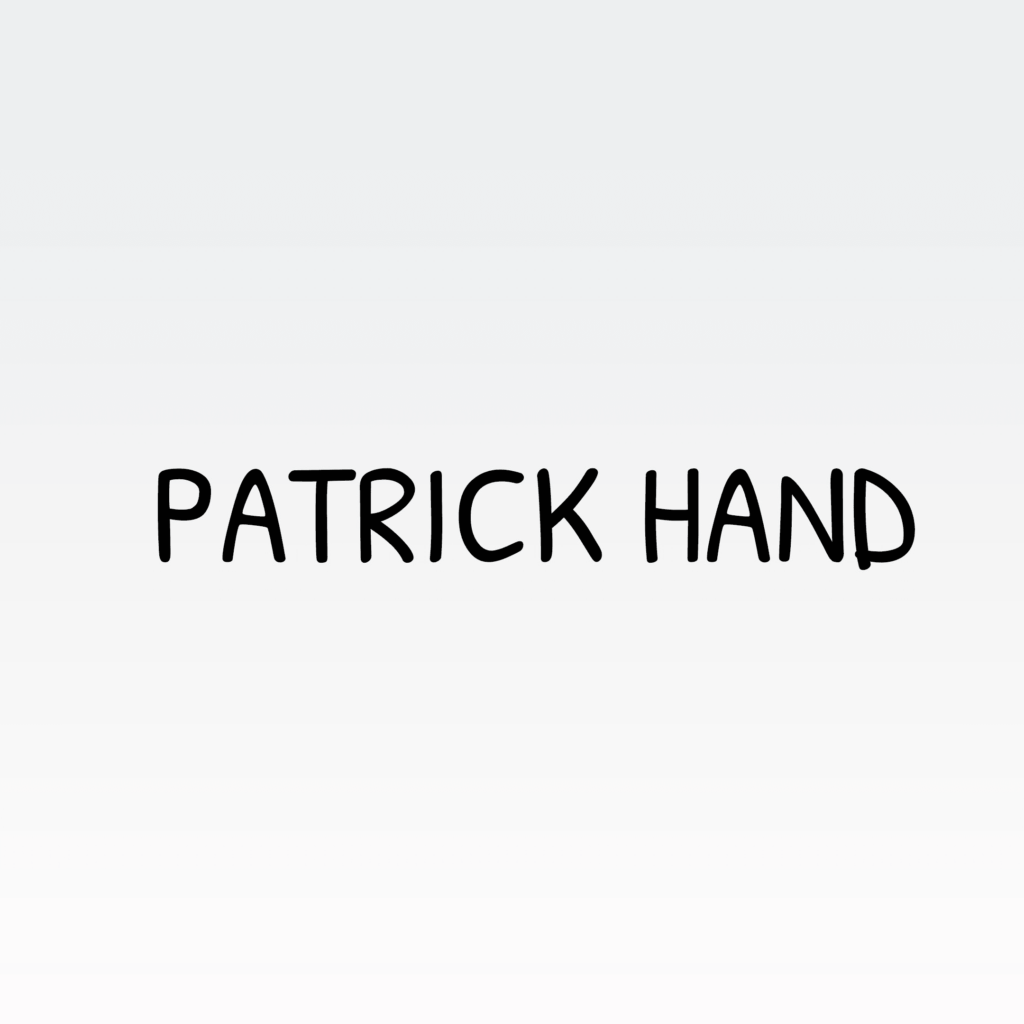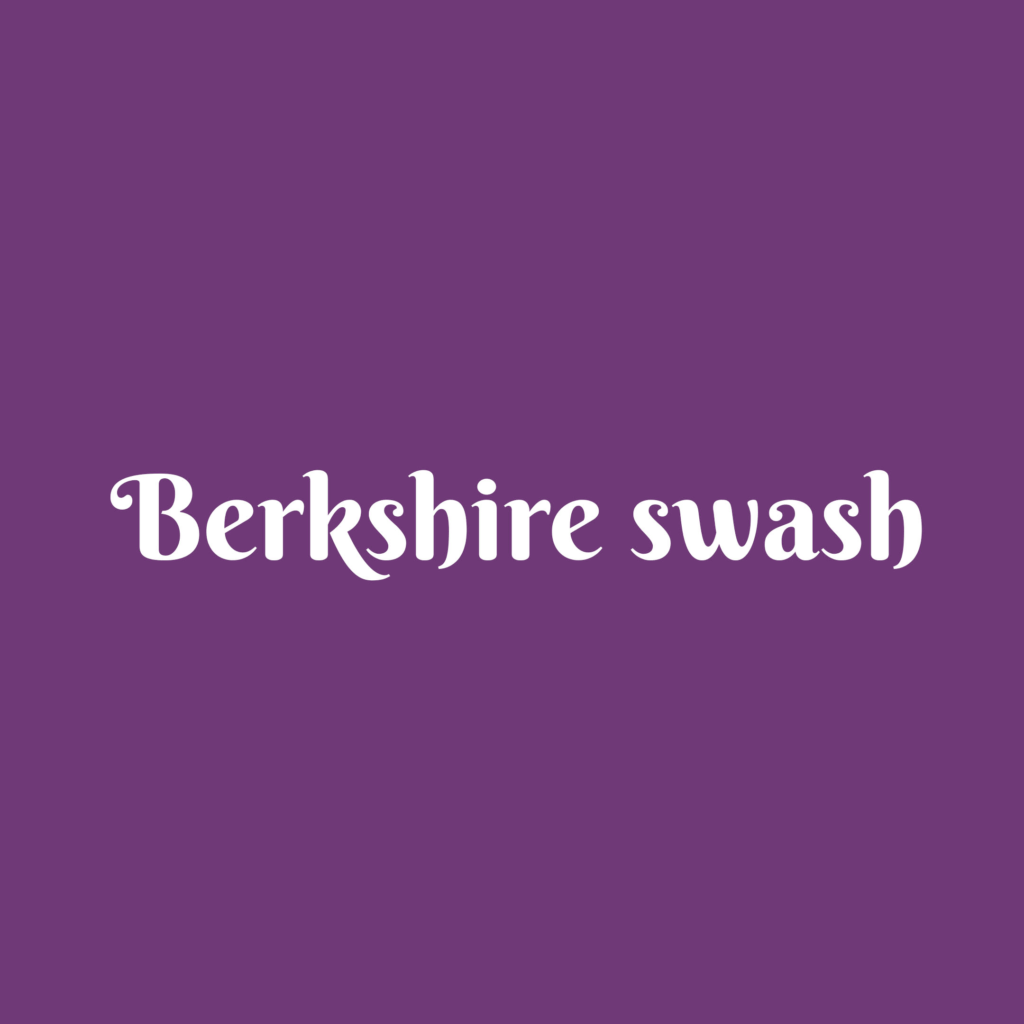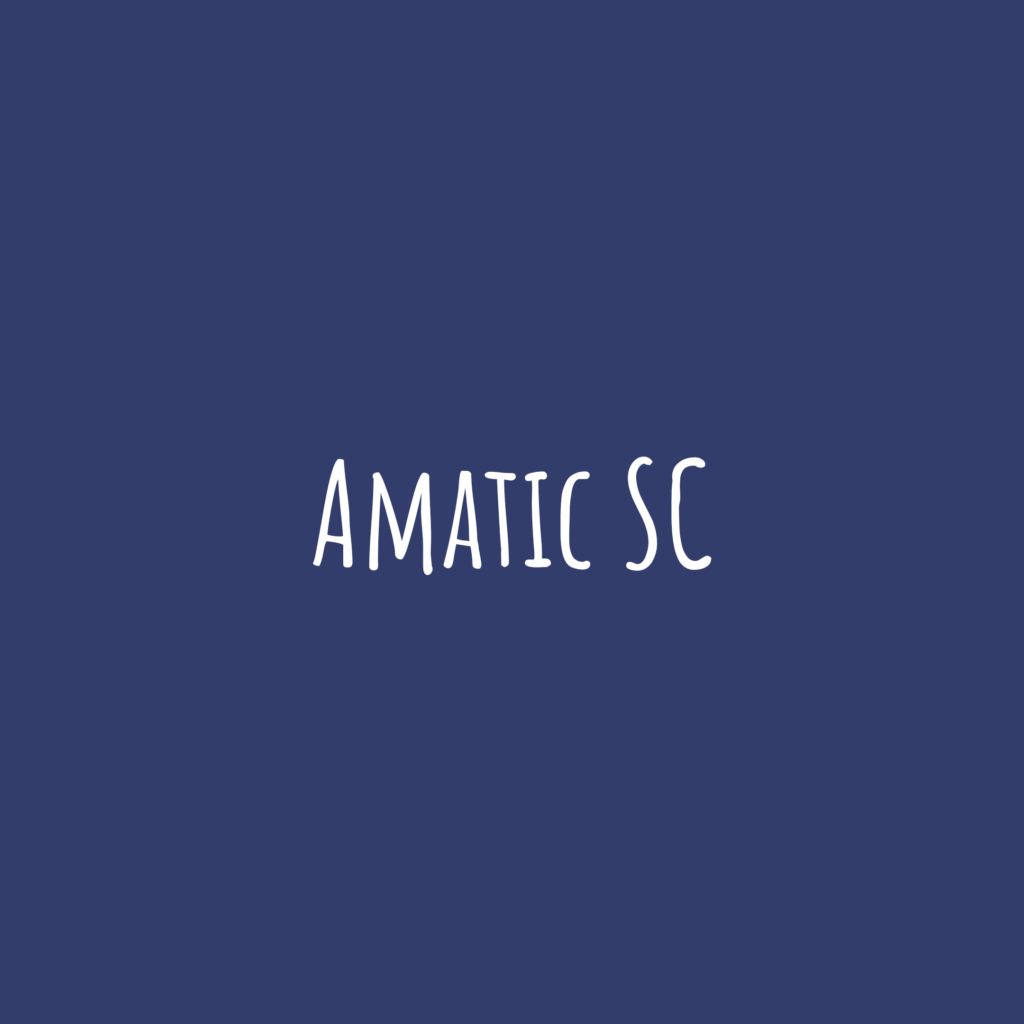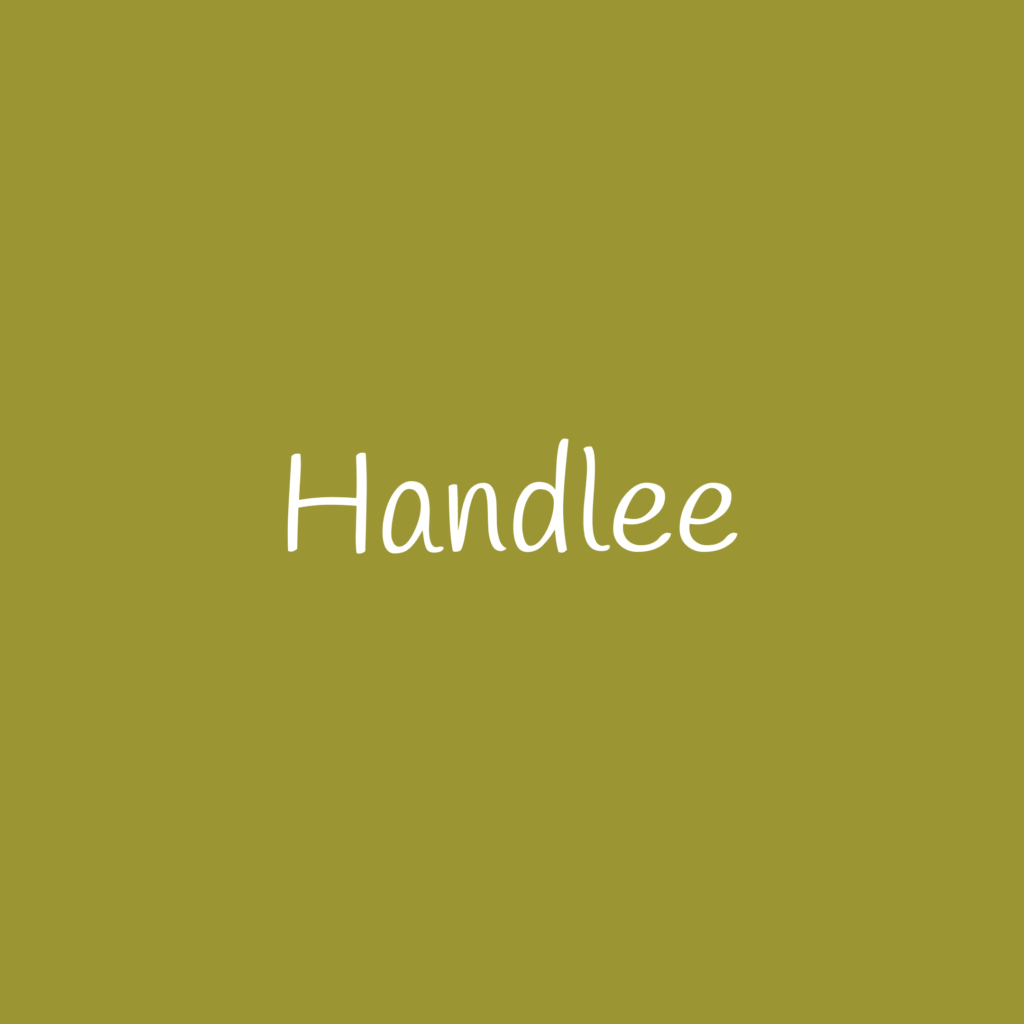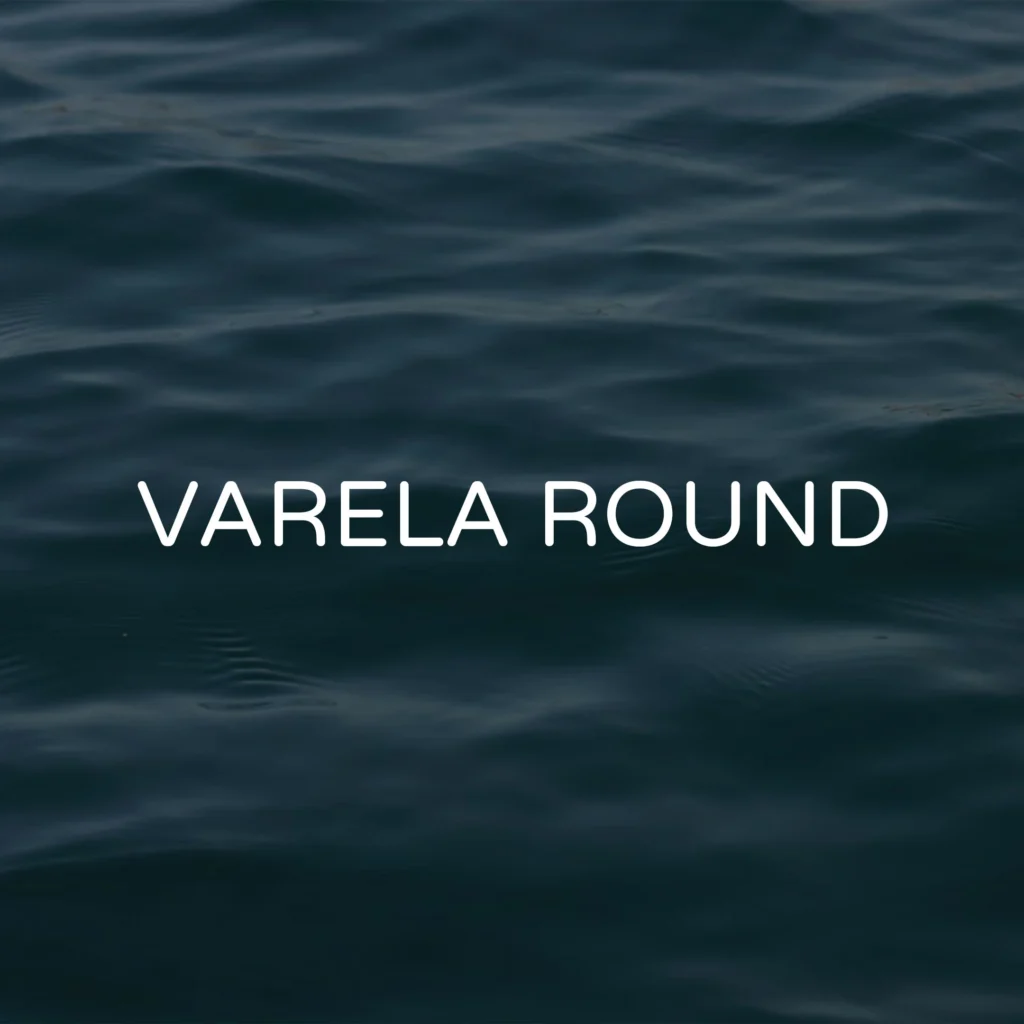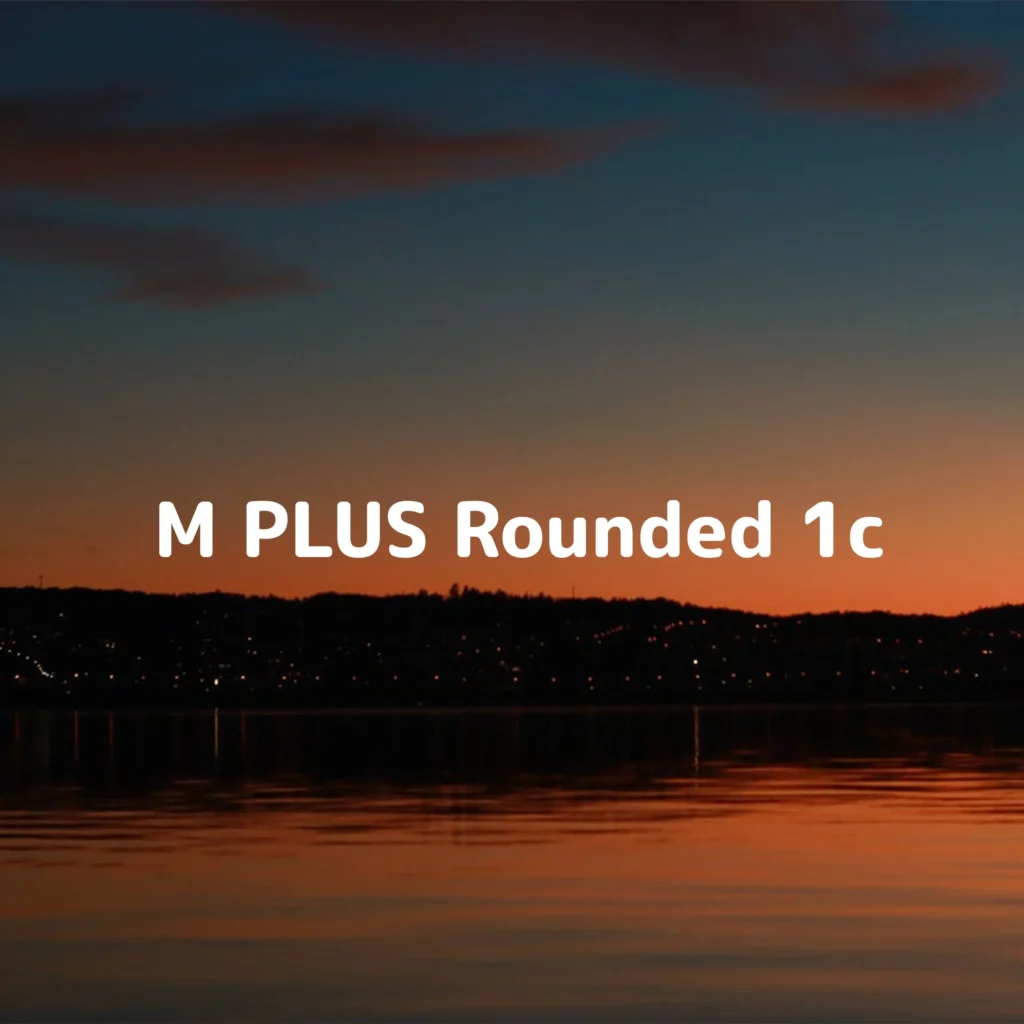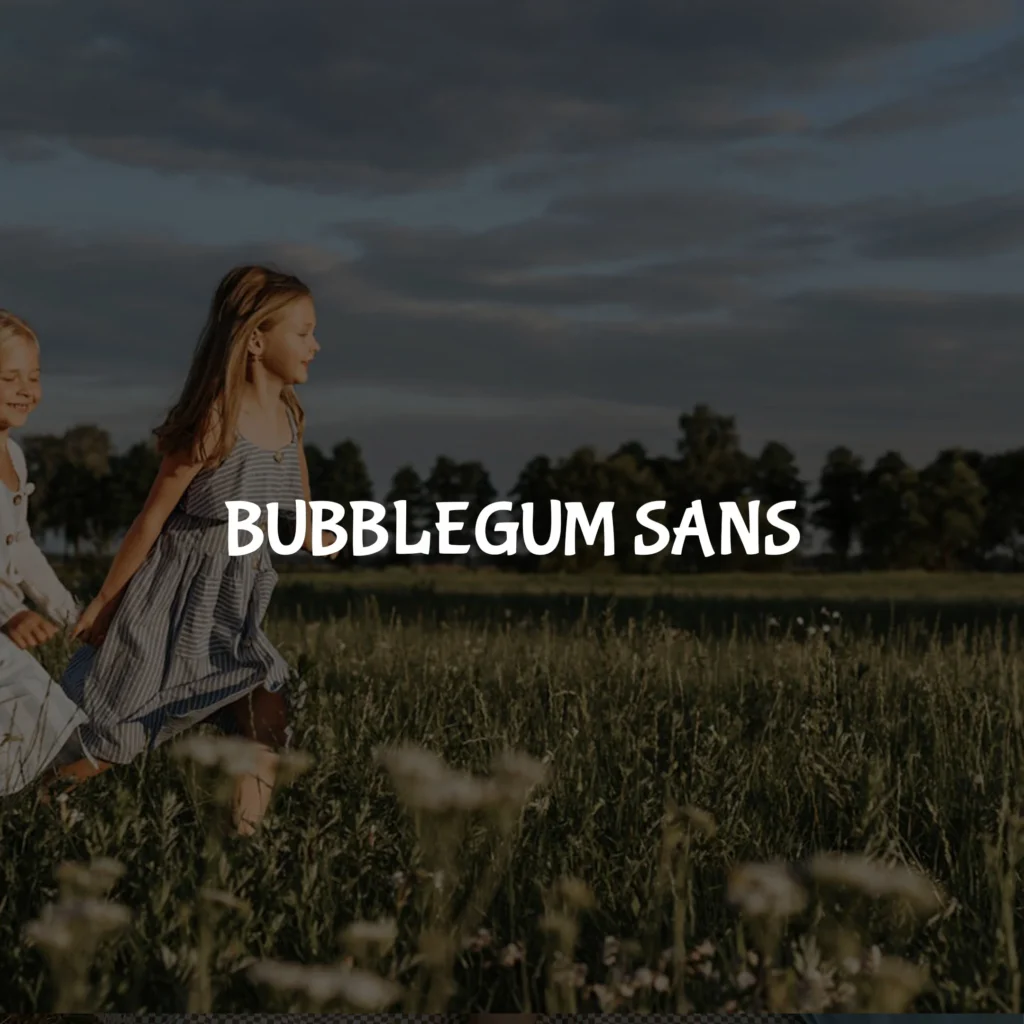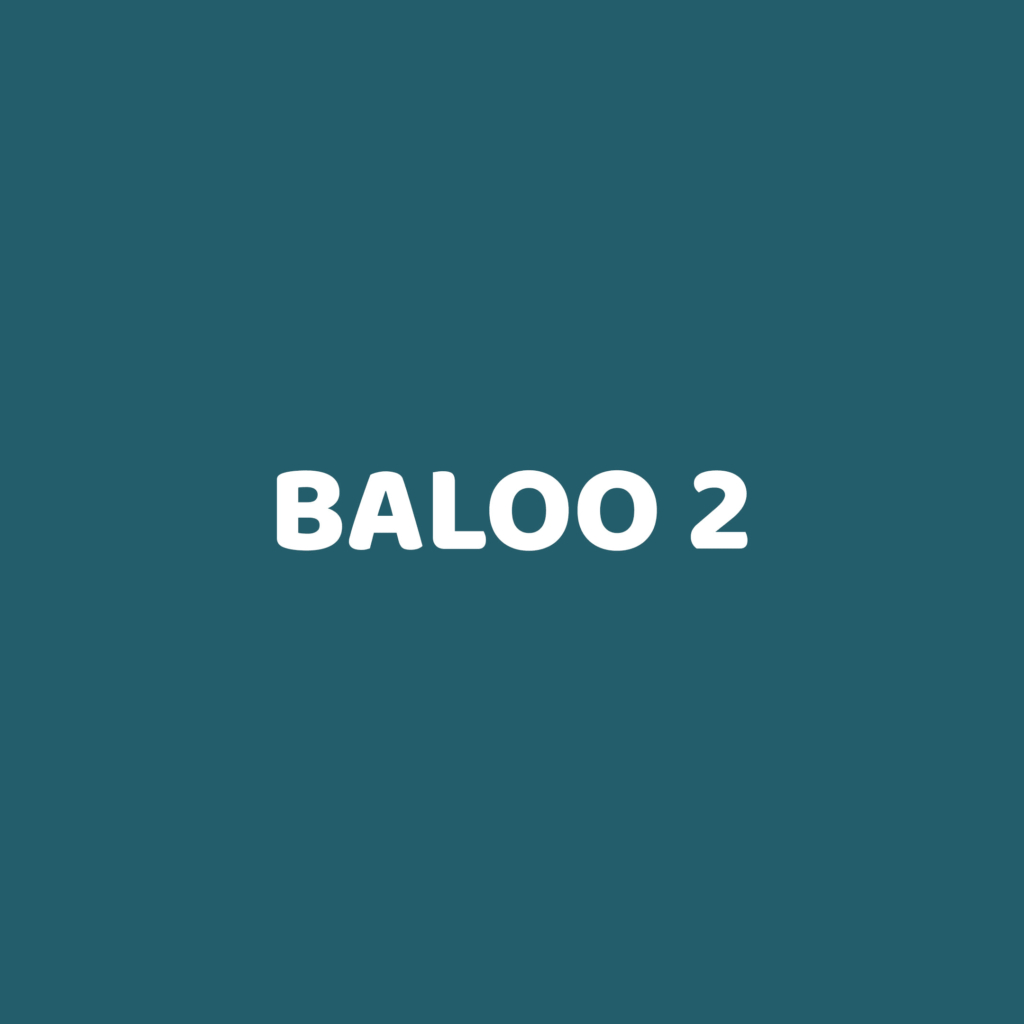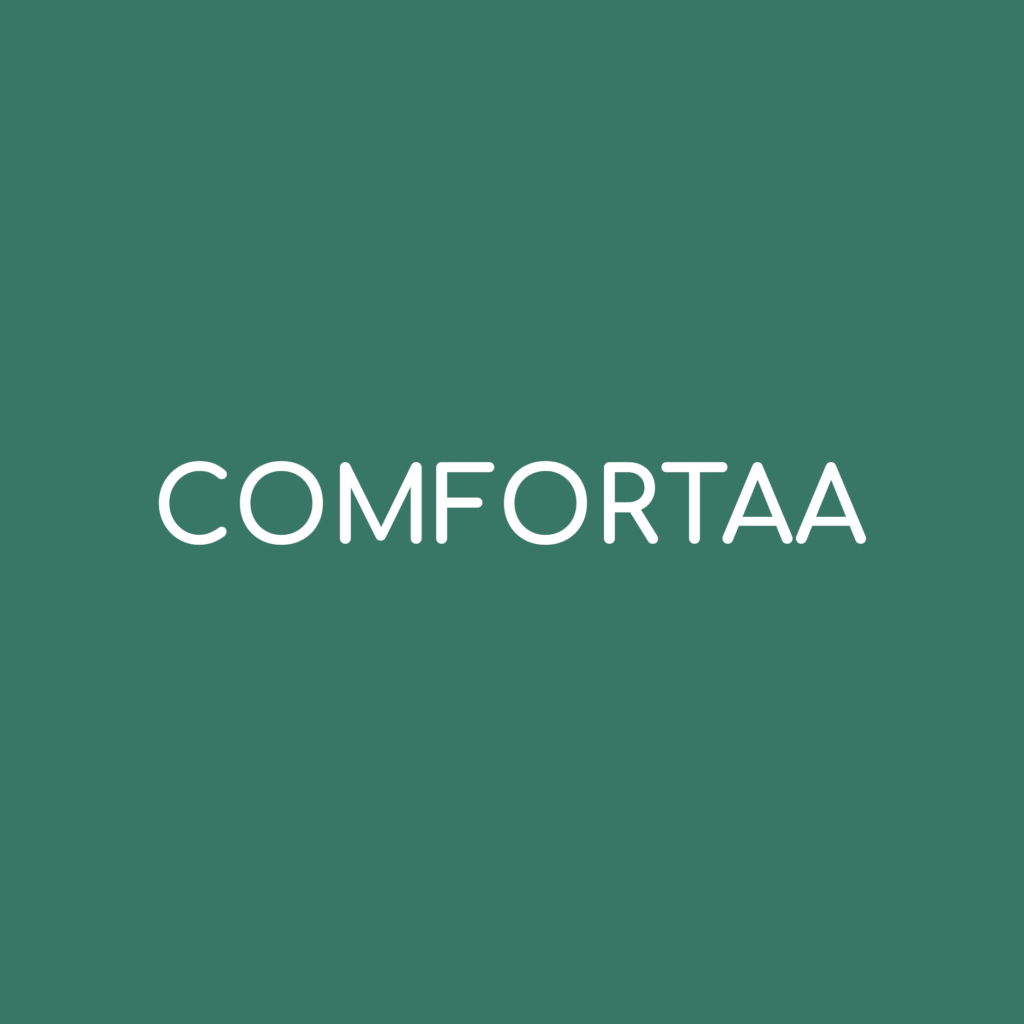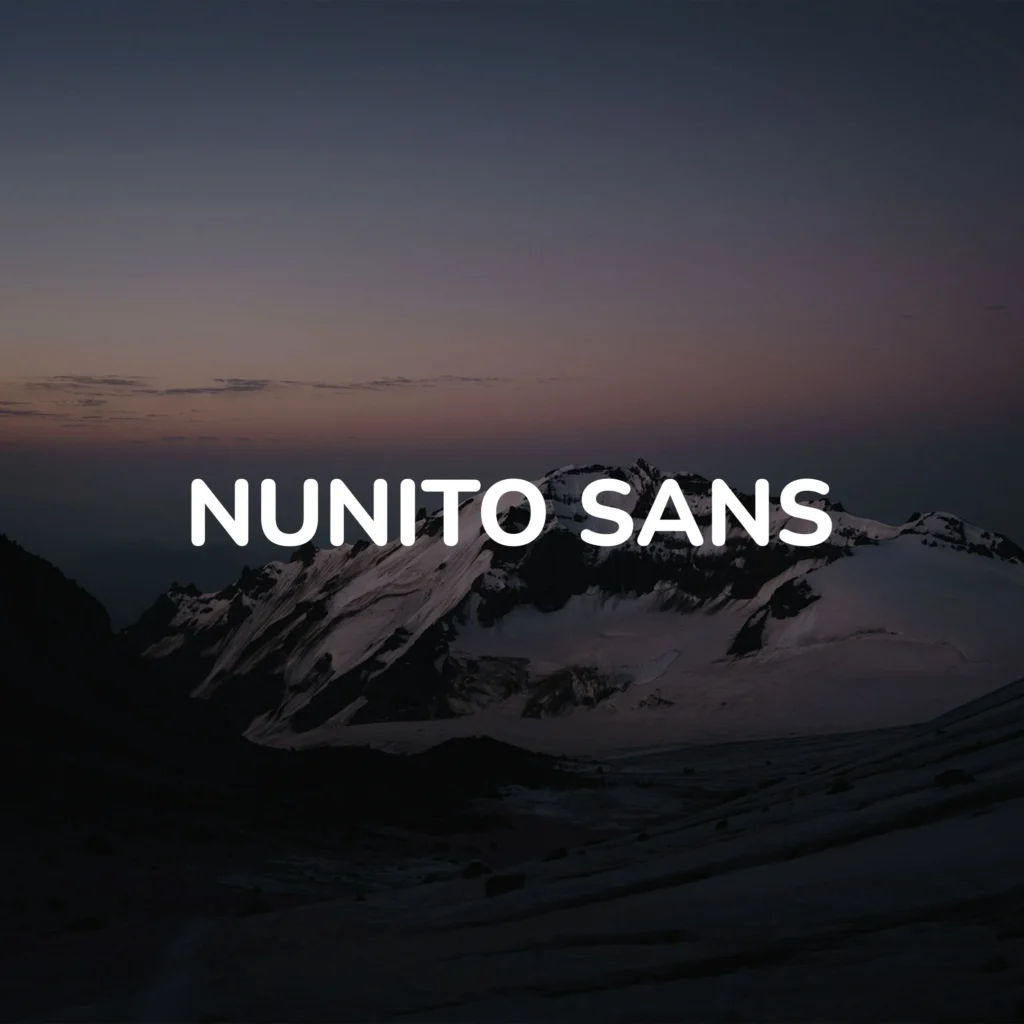
Top Best Free Rounded Fonts | How They Enhance Your Brand and Designs
When it comes to font selection in design, rounded fonts have always caught my attention, as they are known for their unique ability to combine friendliness and professionalism. They offer a warm, accessible quality that many traditional fonts don’t have. Whether you’re creating a brand identity, designing a logo, or working on packaging, rounded fonts can enhance your project by making it more visually appealing. But what makes them so versatile? How do you choose the right font for your design?
A great example is Airbnb, which uses rounded fonts in its social media posts. This choice is no coincidence – Airbnb’s goal is to make its brand accessible and inclusive, and the use of rounded fonts helps convey that message. By using these fonts, Airbnb manages to build trust and comfort among its audience, supporting its brand’s focus on community and shared experiences.
Round fonts are incredibly versatile and work well in a variety of designs, from social media graphics to logos and packaging. They create a positive, friendly first impression, which is why they are often used by companies that want to appear accessible and user-friendly. In my design work, I’ve noticed how these fonts can add a layer of softness and charm, making them a perfect fit for branding projects where a balance of professionalism and friendliness is key. In this article, I’ll delve deeper into the world of circular fonts, share insights from my experience, and explore how you can use them effectively to improve your designs.
What are Rounded Fonts?
As the name suggests, rounded fonts are characterized by their soft, curved edges. Unlike fonts with sharp lines or geometric forms, these fonts offer a gentle, approachable look, making them perfect for projects that need a friendly or accessible feel. They’ve become especially popular in branding and UI design, where companies want to create a more inclusive, warm visual presence.
Now, let’s talk about rounded shaded sans serif fonts—a more advanced category. These fonts offer both the softness of rounded edges and the visual depth of shading. This combination makes them an excellent choice for modern designs where readability and visual appeal are equally important. For example, Arial Rounded, Helvetica Rounded, and Gotham Rounded are all go-to choices for designers. Each of these fonts offers a perfect balance of clarity and softness, making them highly versatile for branding projects that require a softer, yet professional touch.
Why Choose Rounded Fonts for Your Design?
As someone who’s been designing for years, I’ve noticed that rounded fonts can truly elevate the emotional connection a design has with its audience. Rounded fonts are not just visually appealing—they have a subtle psychological impact. For example, they tend to make a brand or product seem more approachable, friendly, and trustworthy. This is why you’ll often see them used in tech startups, food packaging, and even children’s products.
But rounded fonts aren’t just about looking nice—they solve design problems too. Let’s take VAG Rounded Font and Arial Bold Rounded Font as examples. These fonts are perfect when you need a combination of softness and boldness, especially in business branding. They create a professional look without being too hard. Many people don’t realize this, but rounded fonts are great for logo designs because they’re versatile and fit almost any industry. The curved edges can make logos stand out, especially when used on digital platforms.
If you’re working on a product that needs to communicate approachability or friendliness, rounded fonts are the way to go. For example, I’ve used Arial Rounded in several projects for tech startups to create a welcoming feel, which is important when you’re building user interfaces or working on customer-facing designs.
Free Modern Rounded Fonts
If you’re looking for sleek and modern fonts, modern rounded fonts are the perfect choice for you. They combine the freshness of minimalism with the softness of rounded edges, making them ideal for websites, branding, and even user interfaces. Here are some evergreen rounded fonts that I recommend:
Nunito
Nunito is one of my go-to modern rounded fonts. It’s a balanced sans-serif font with smooth, rounded corners that work well for both text and headlines. What I love about Nunito is its versatility—whether you’re designing a corporate website or a tech startup logo, Nunito adapts beautifully.
Quicksand
Quicksand has this clean, geometric feel but with softer curves, making it a great option for modern designs. I’ve used it in UI/UX projects where legibility is key but where I also wanted to keep the design light and approachable. The rounded edges of Quicksand make the text less rigid, perfect for projects aiming for a friendly vibe.
Raleway Dots
Raleway Dots is an interesting choice for more experimental or futuristic designs. The round, dotted letters give it a very unique aesthetic, which can be a conversation starter. If you’re working on a design that requires something modern but with a twist, Raleway Dots can be a standout choice.